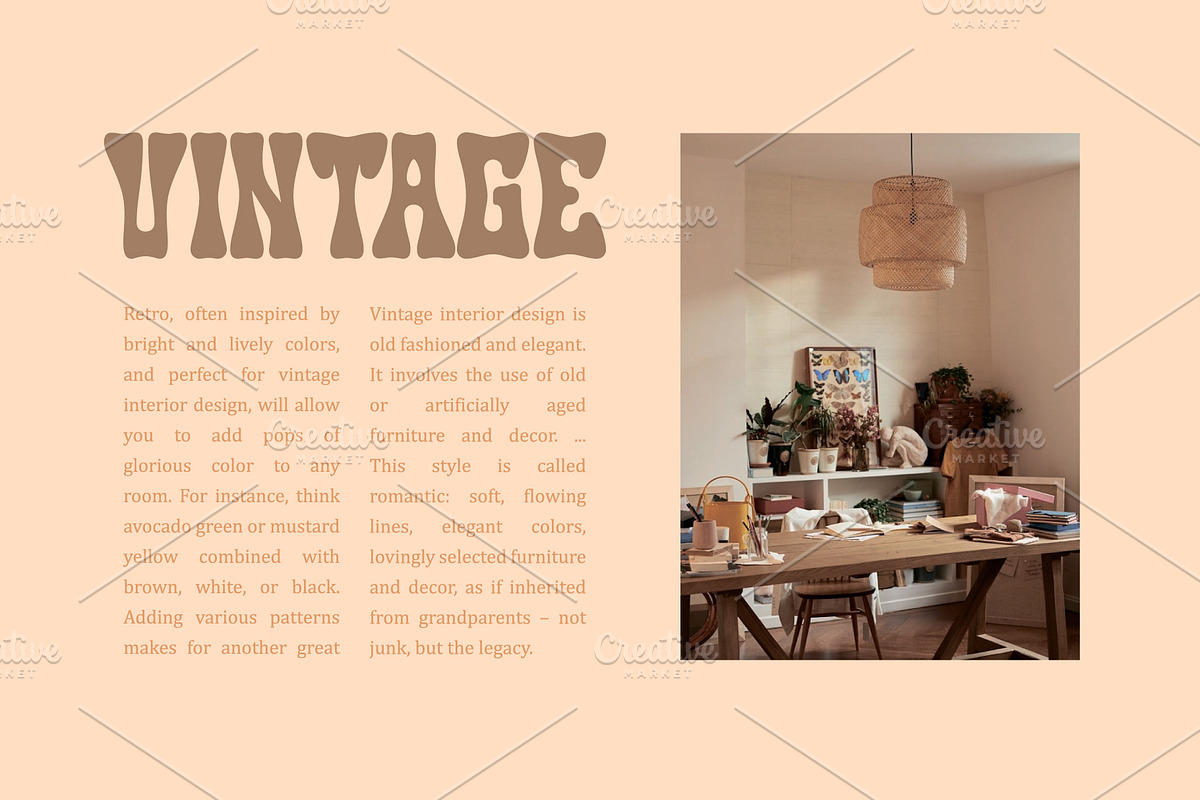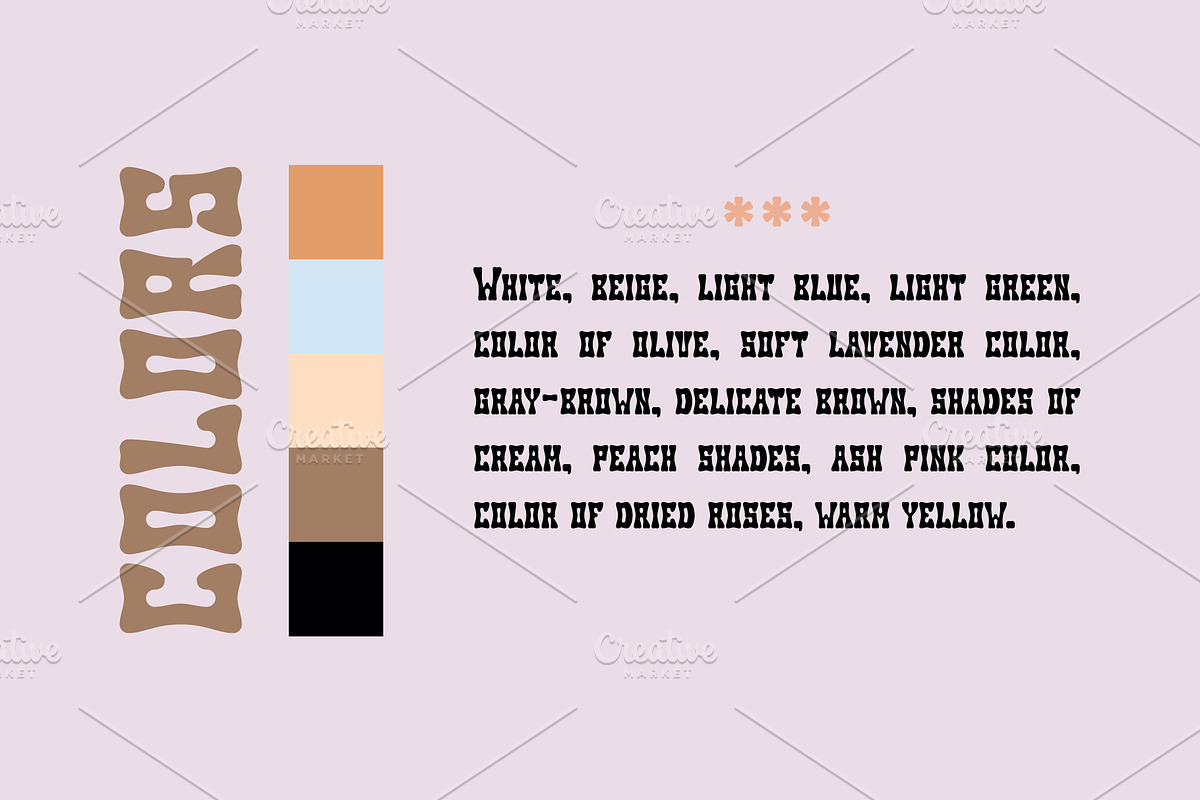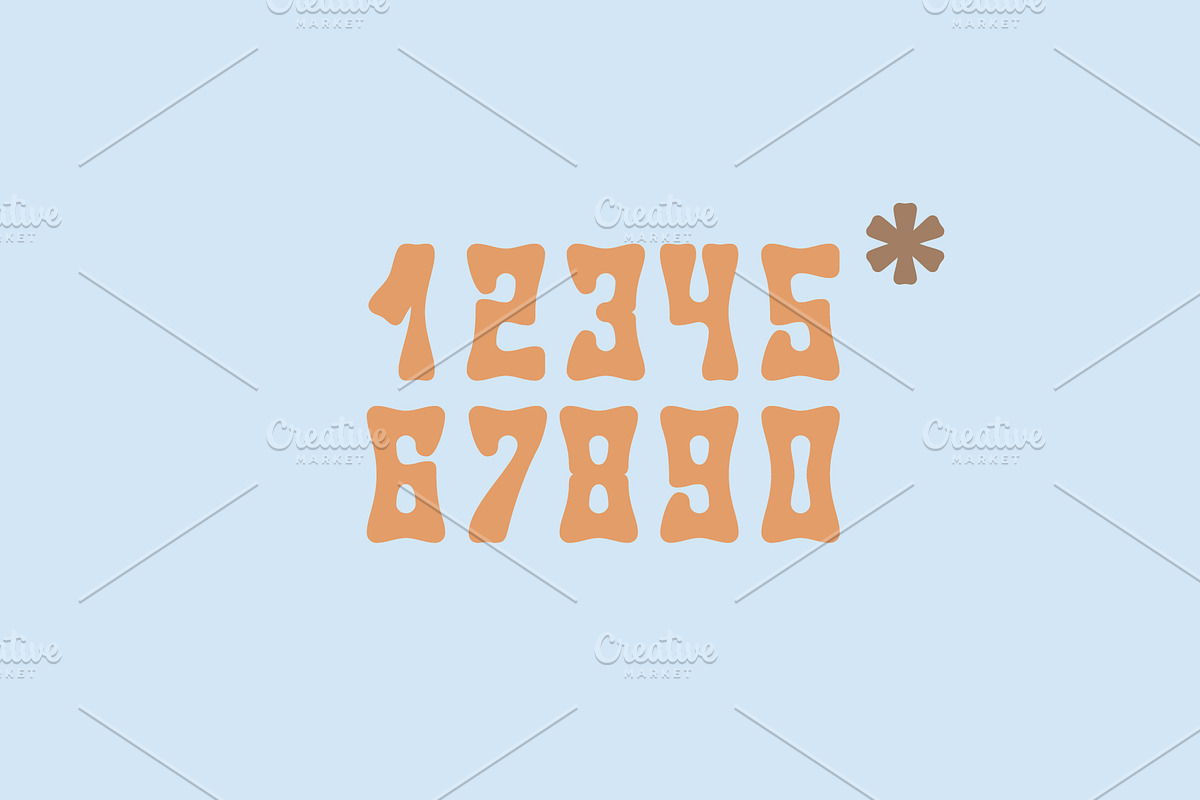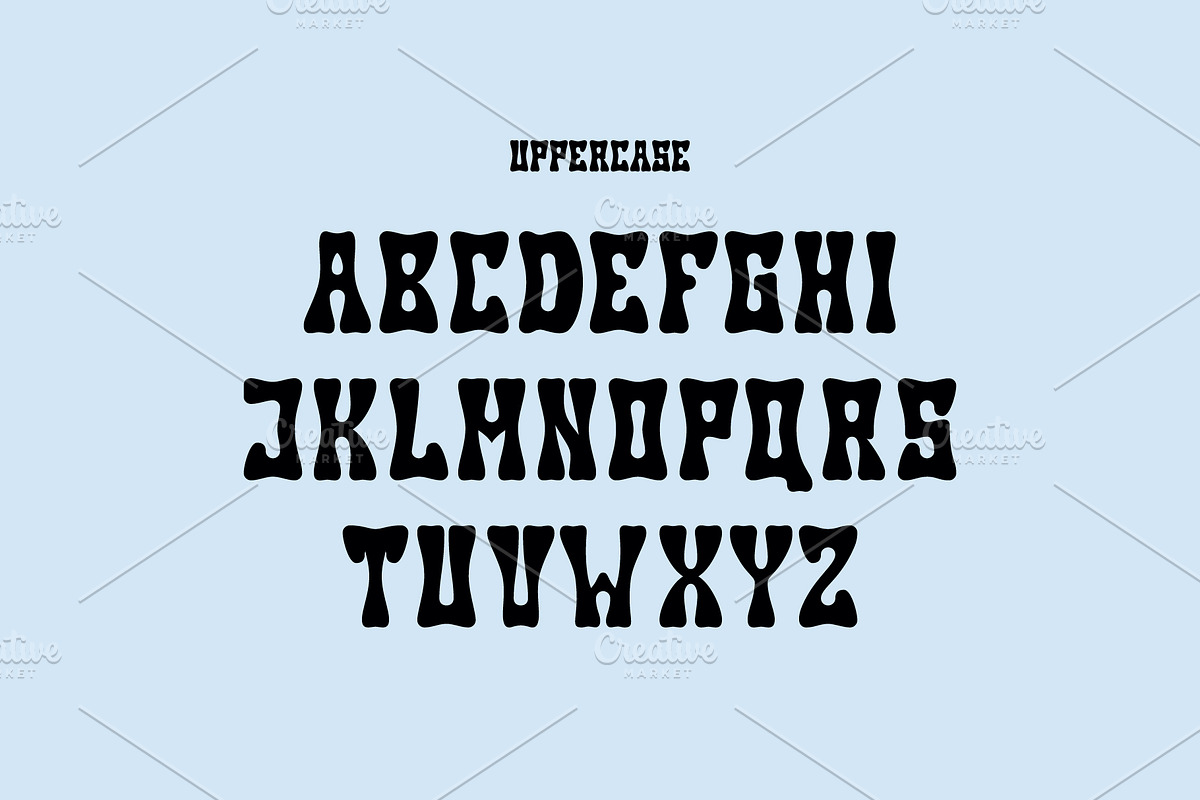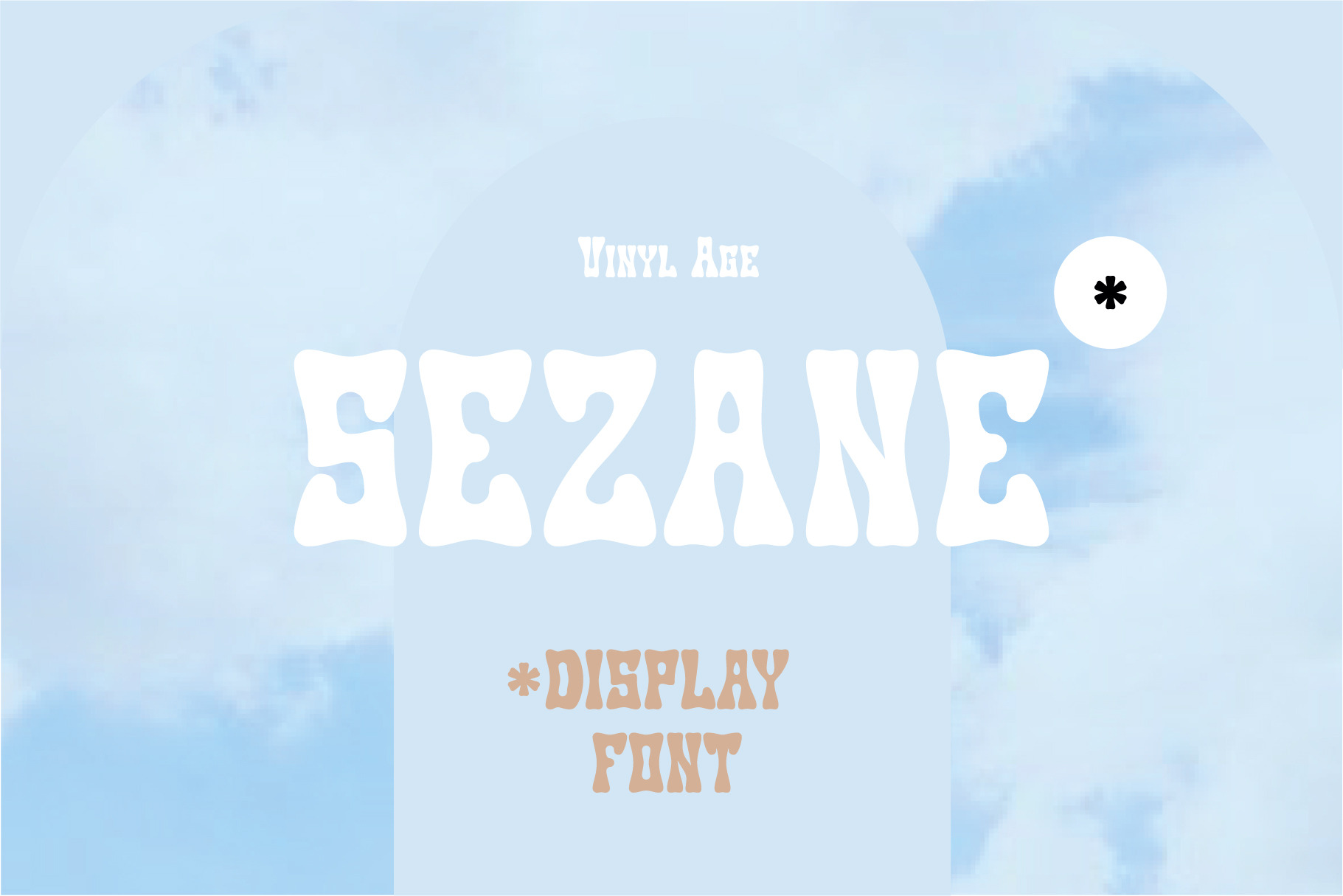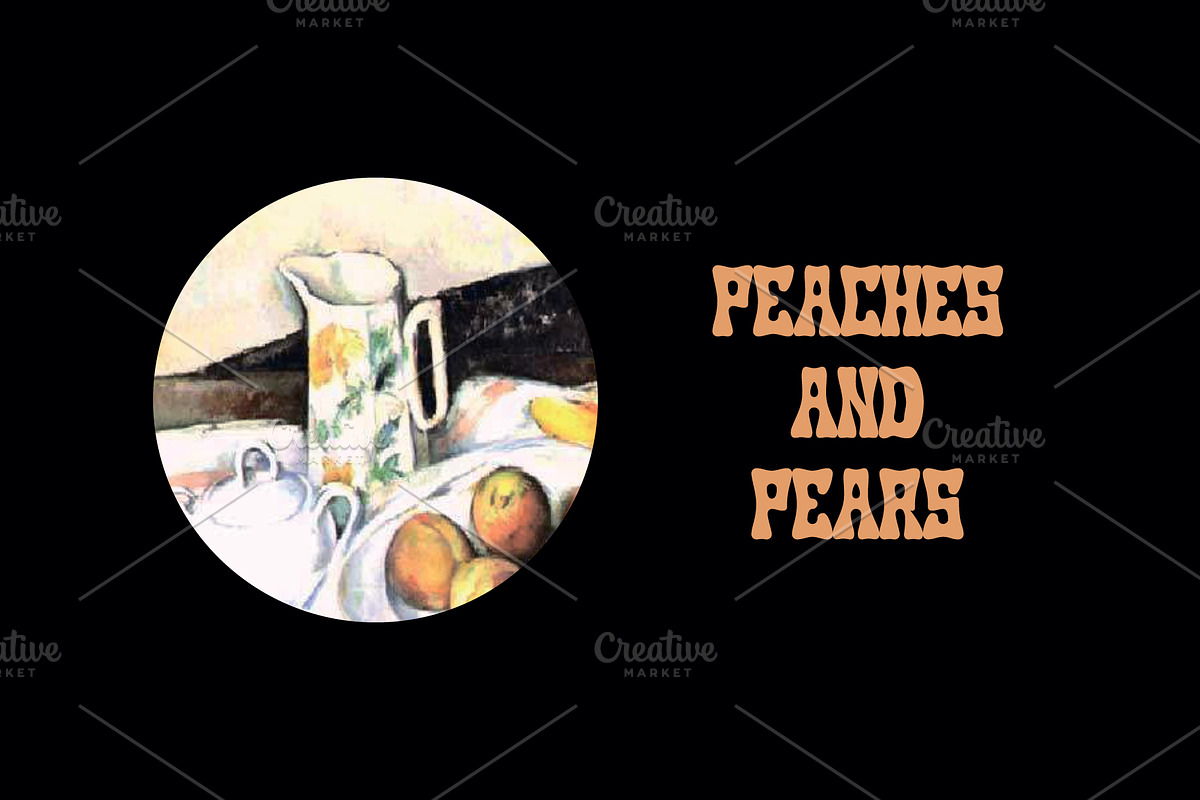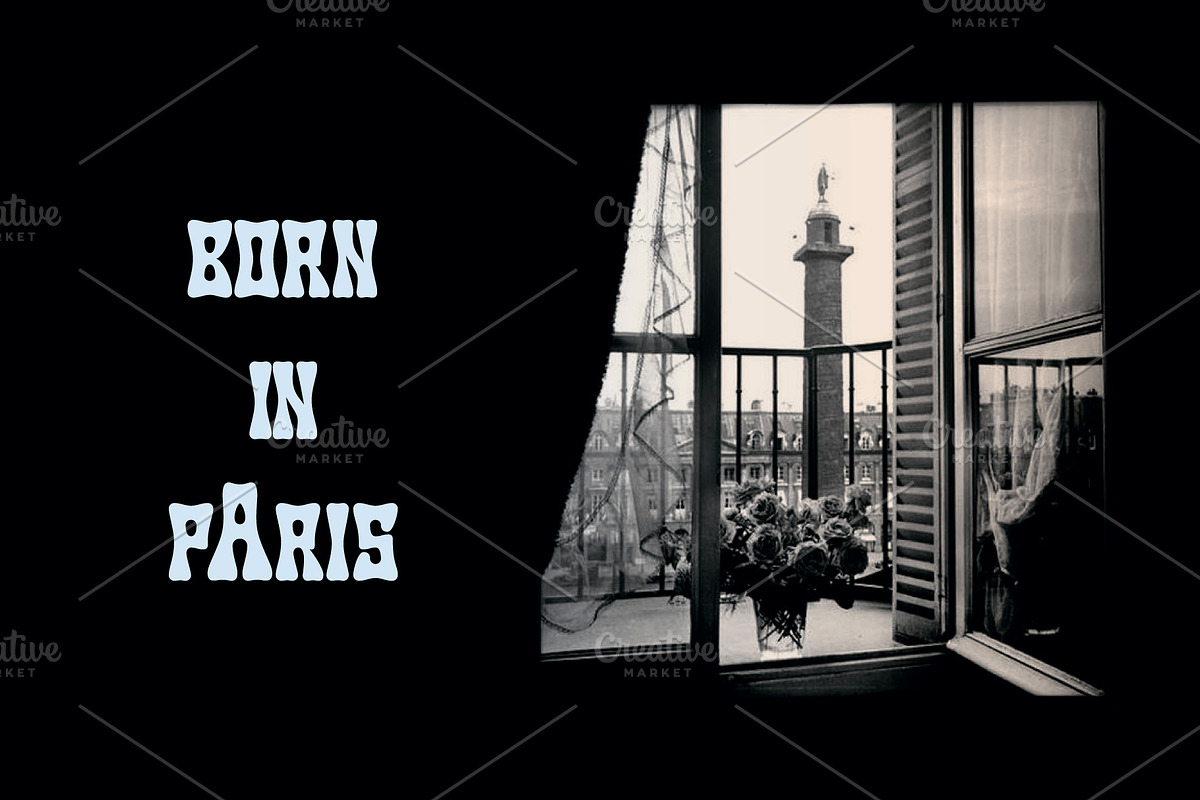
Sezane Font
Hi everyone! This is my new font Sezane. This font has vintage characters, uppercase and lower case caps, numbers and punctuation. The font is suitable for creating wordmarks, titles, taglines. Includes format OTF, TTF and vector.